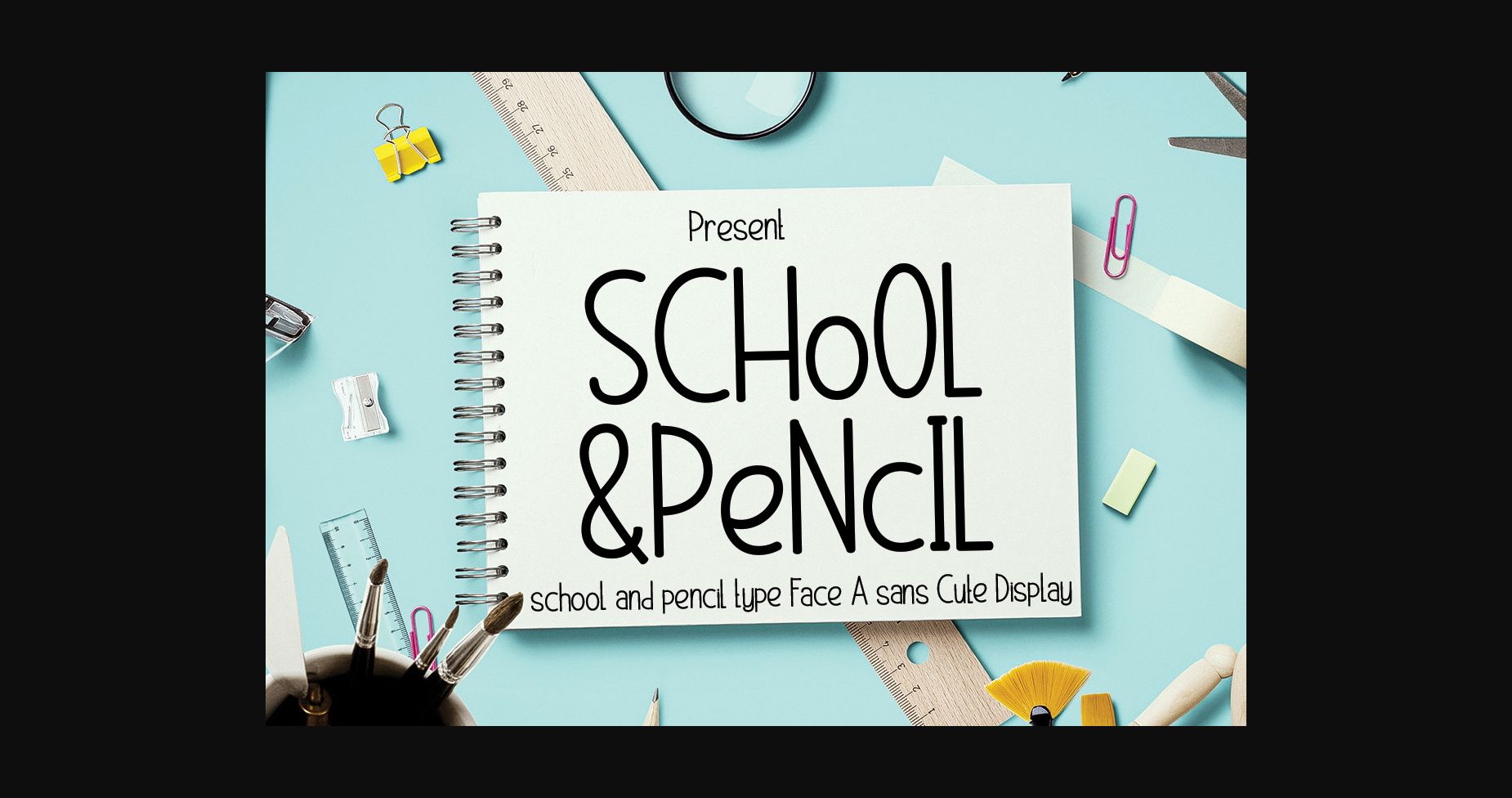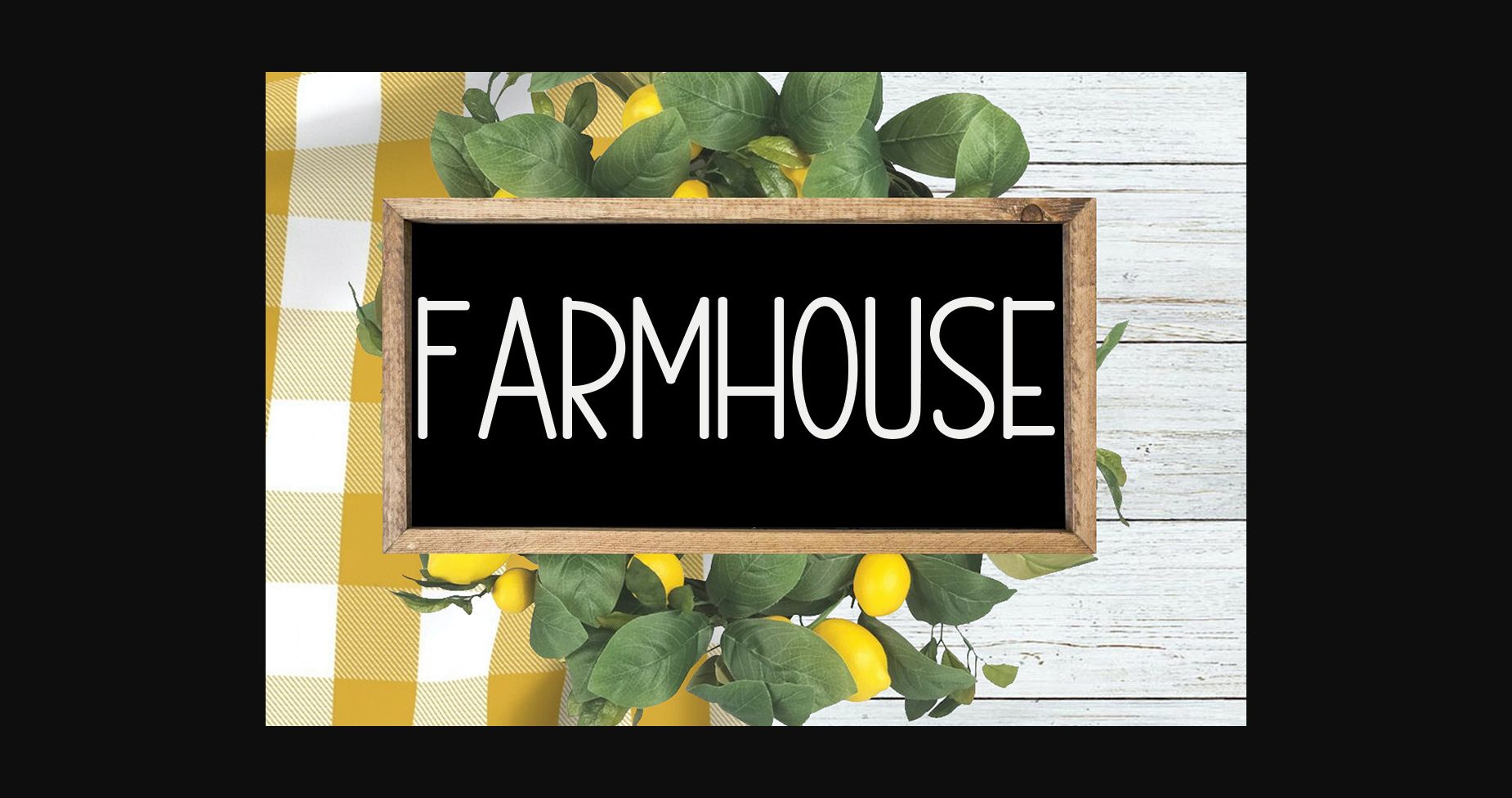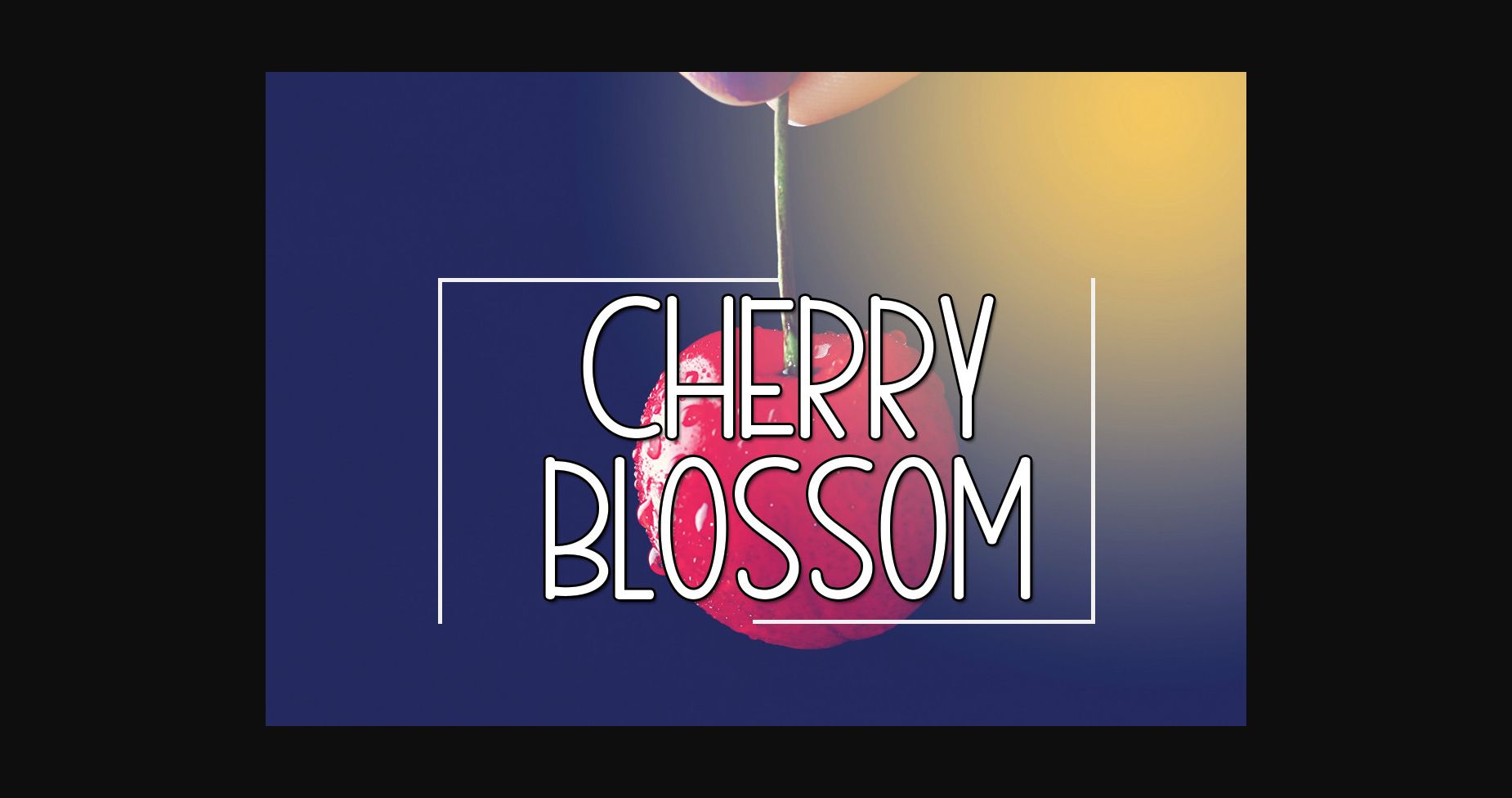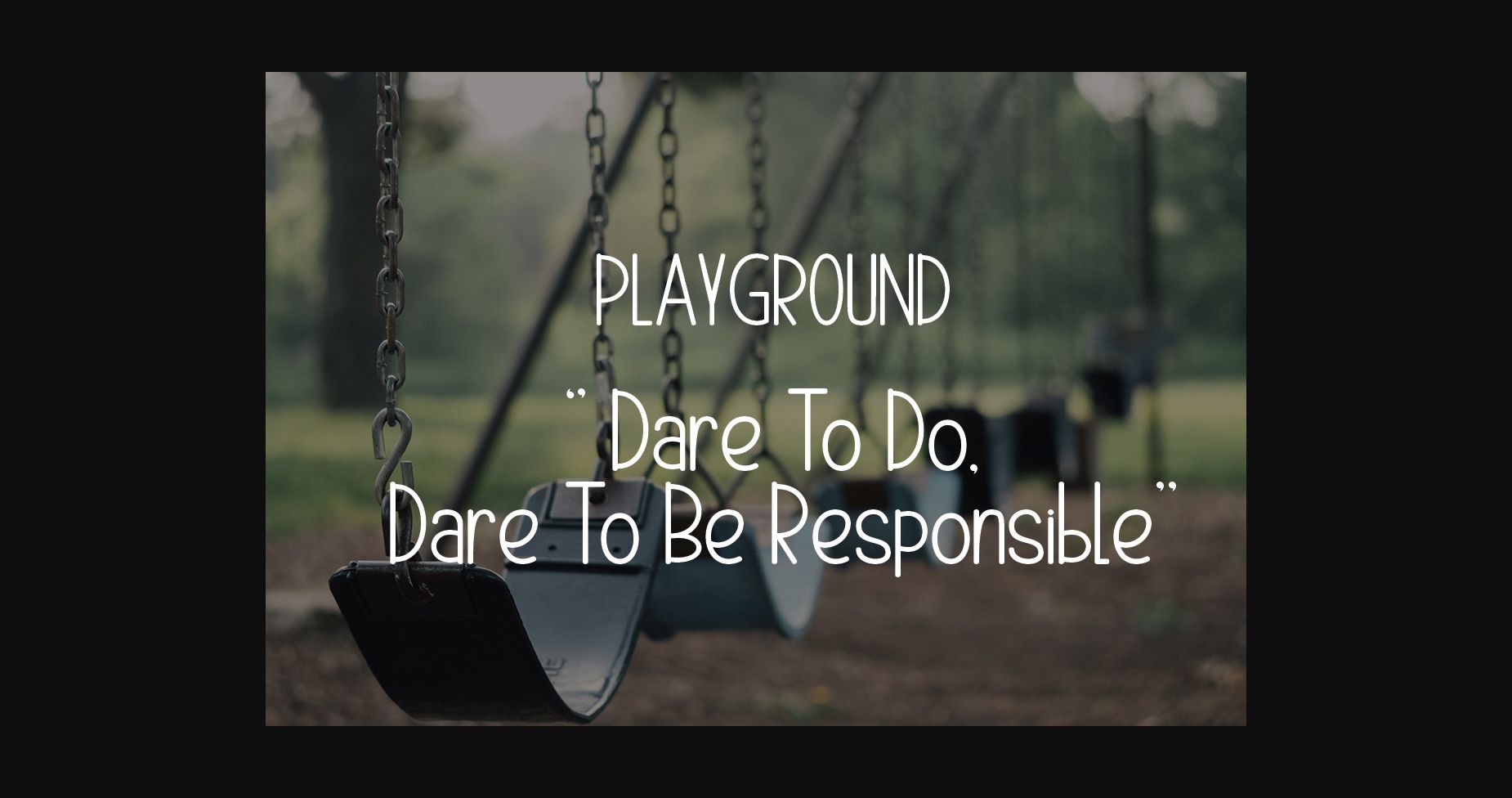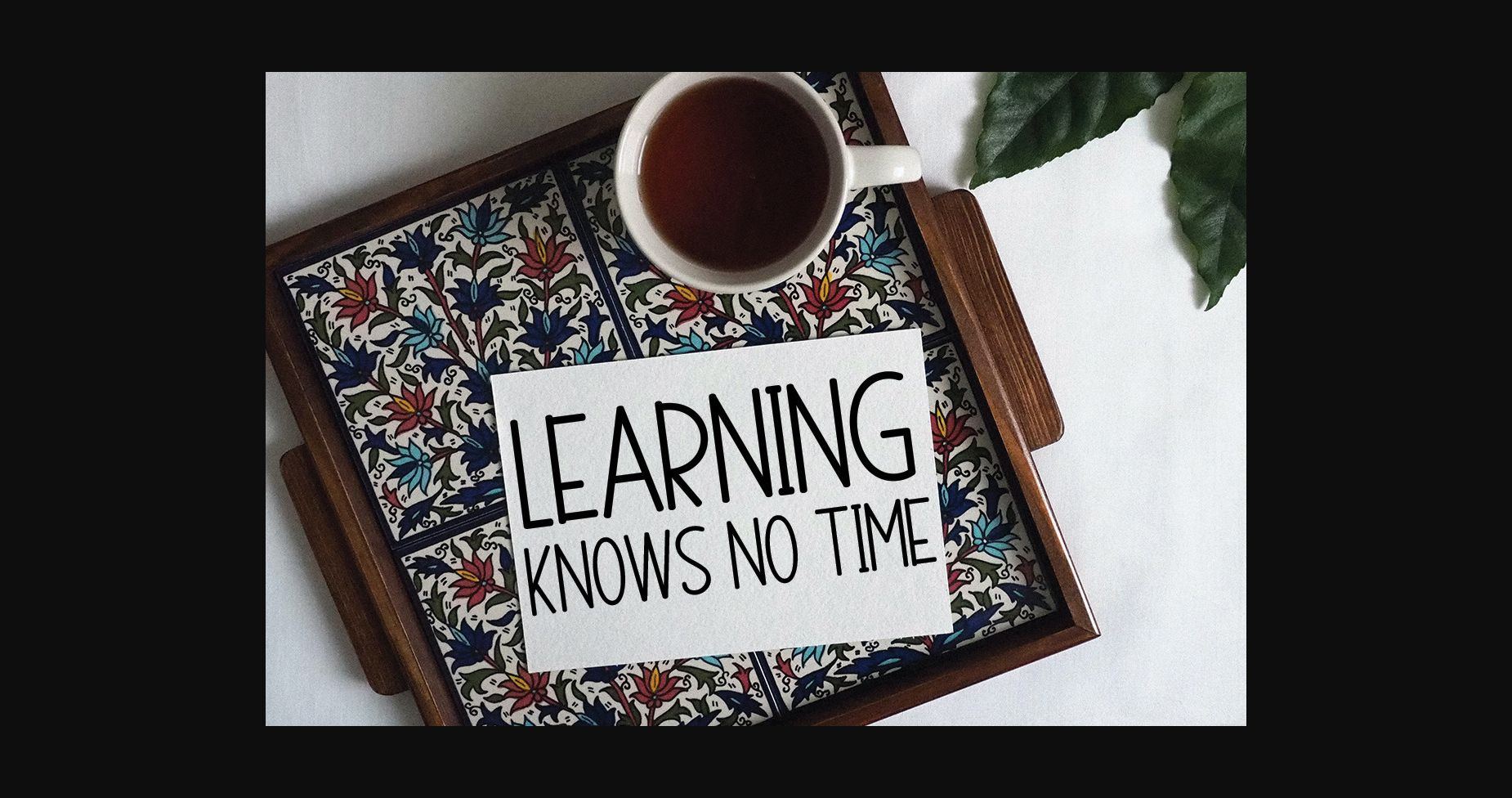
About School and Pencil Font
School and Pencil is a clean and simple sans serif font with a delicate appearance. This font is suitable for projects related to children, birthday invitations, and many other creations requiring a light touch.